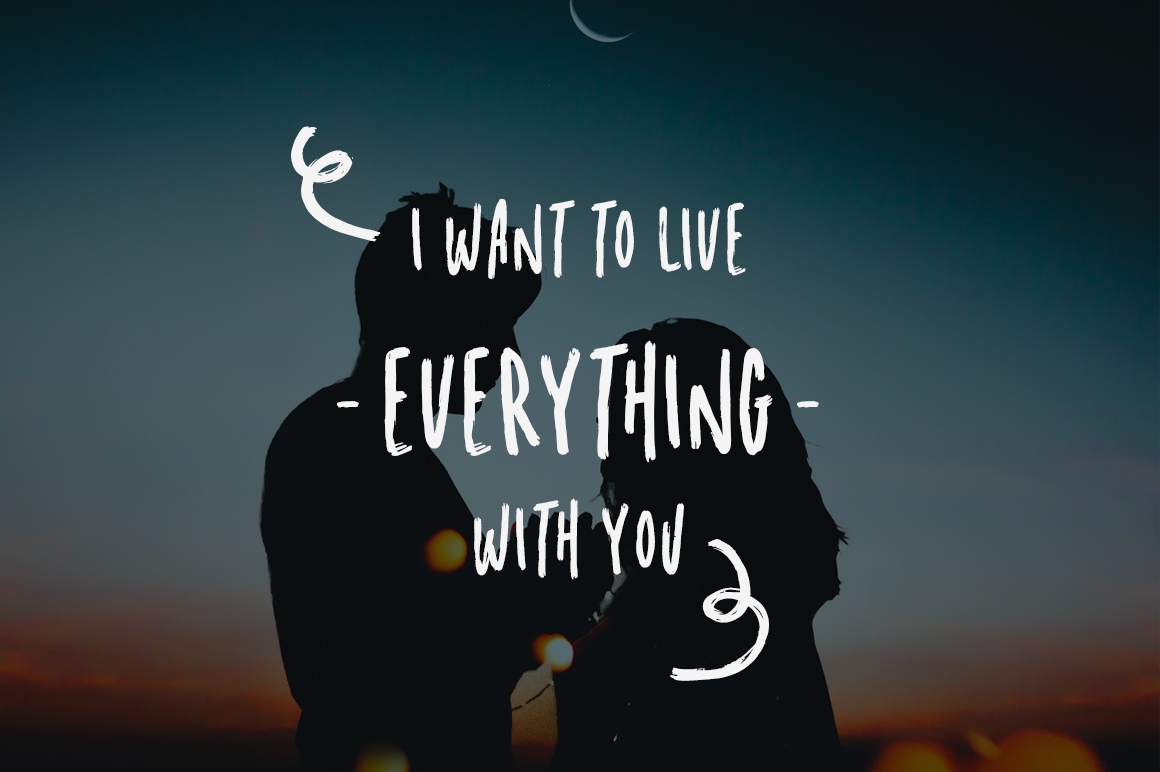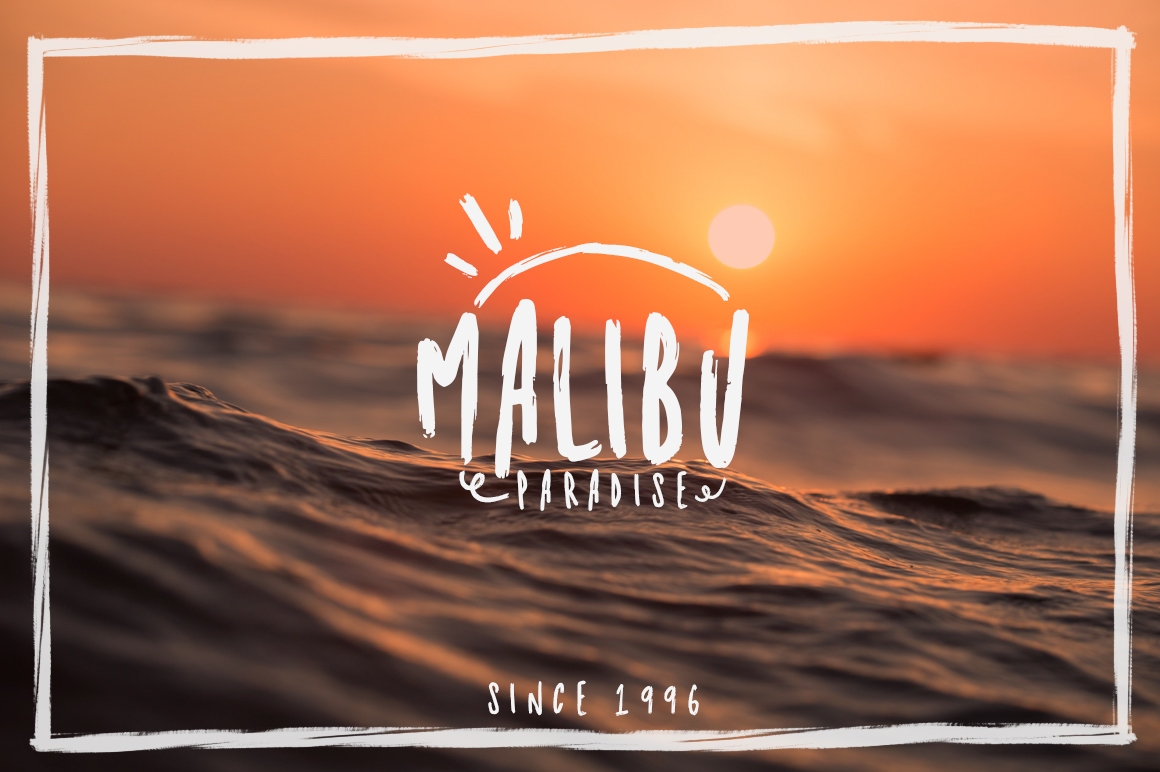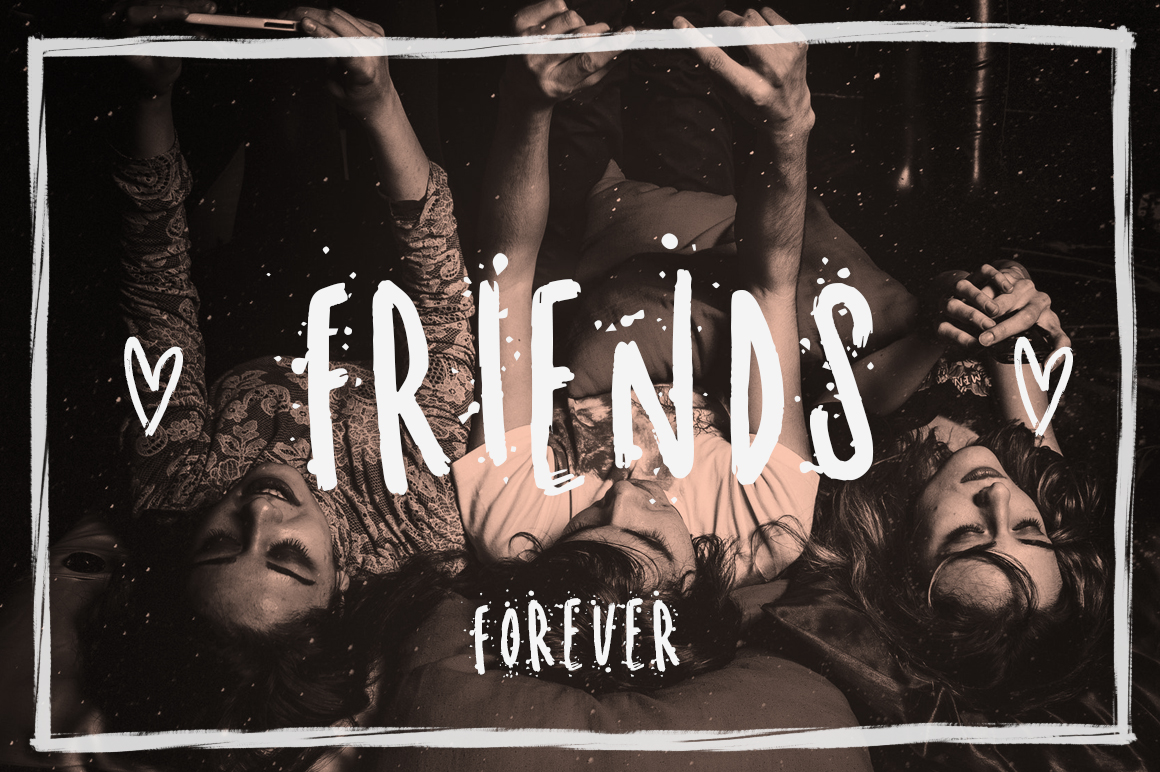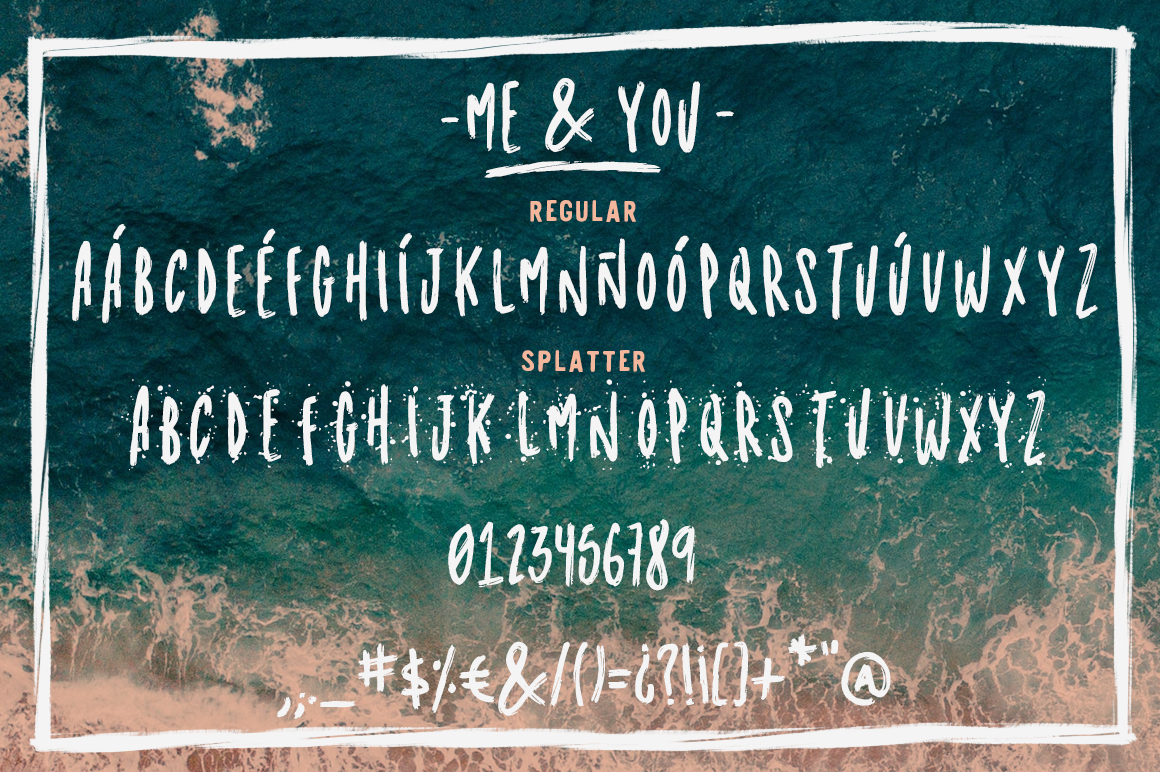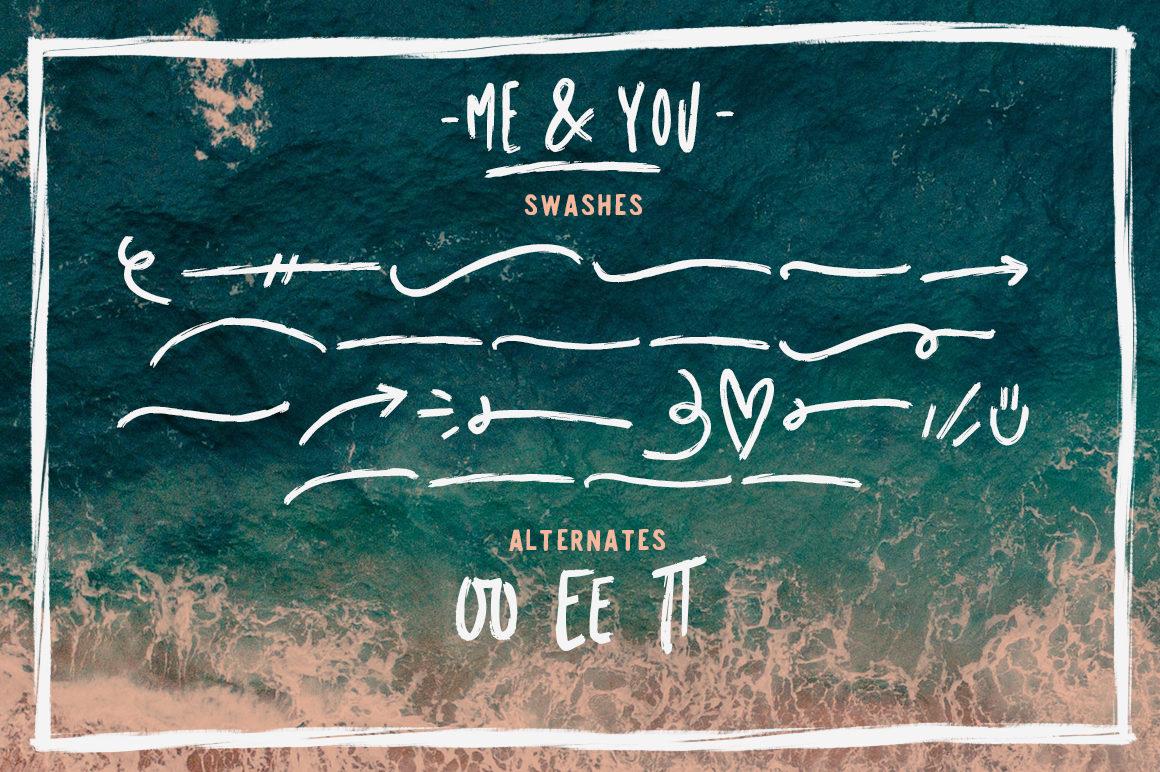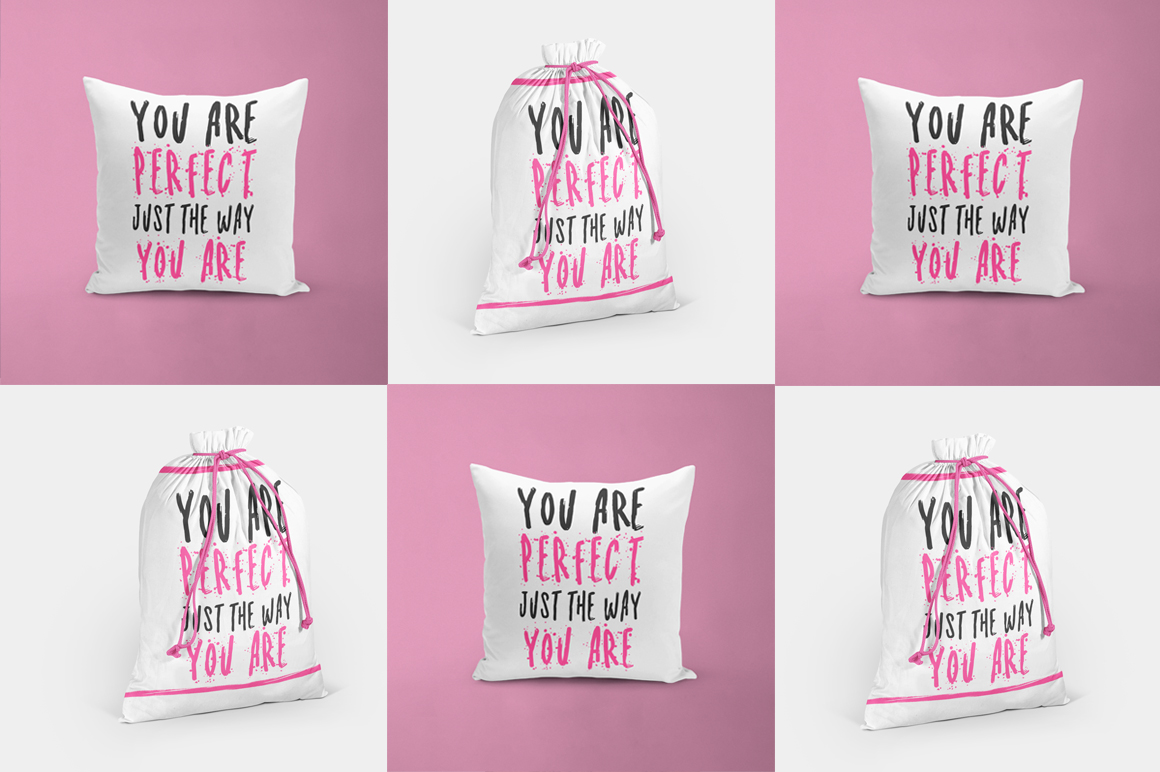
Me and You Font
About Me and You Font
Me and You Dry Marker Font is a fun and feminine brush font. Me and You includes extras and different styles, so you can create the most unique variations of your work imaginable!